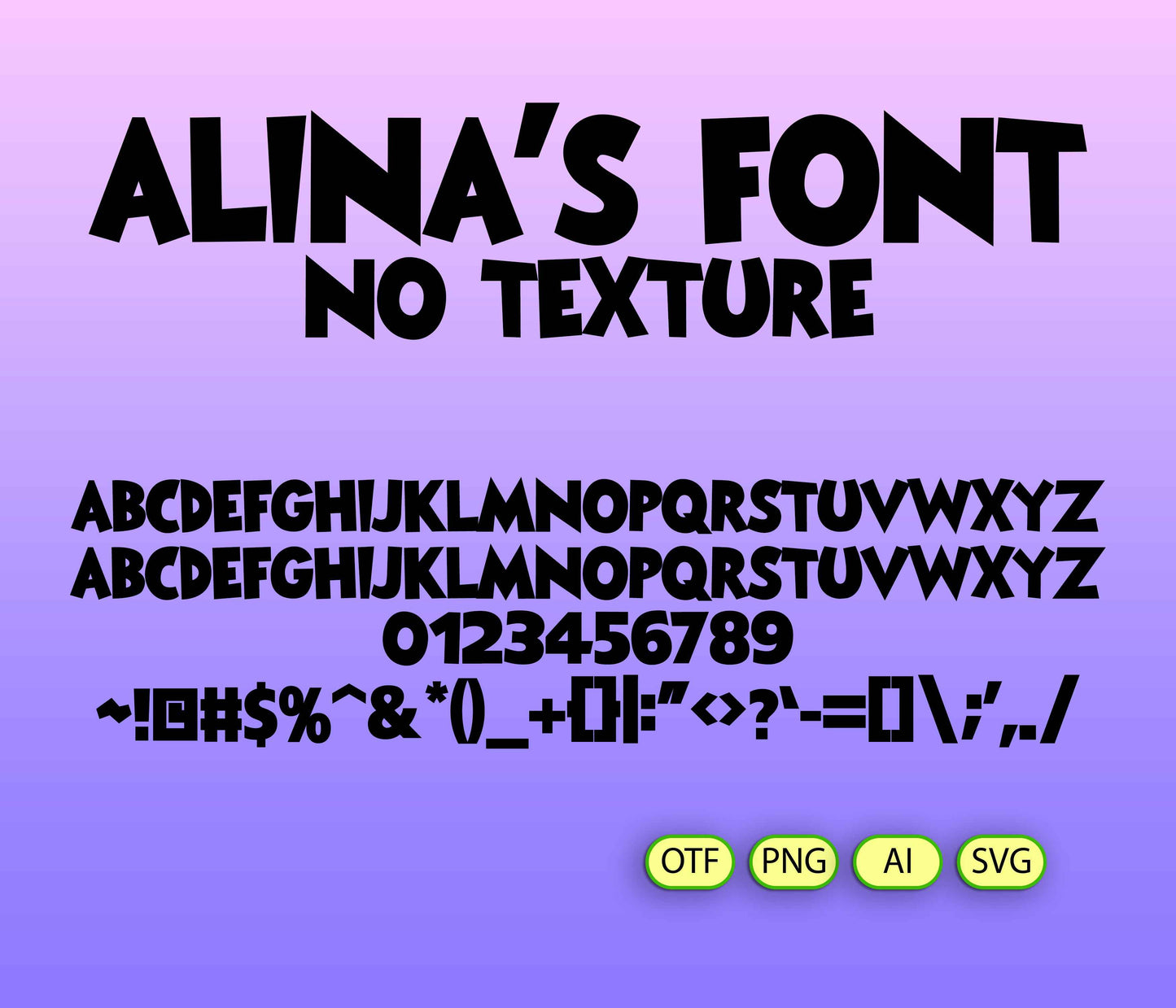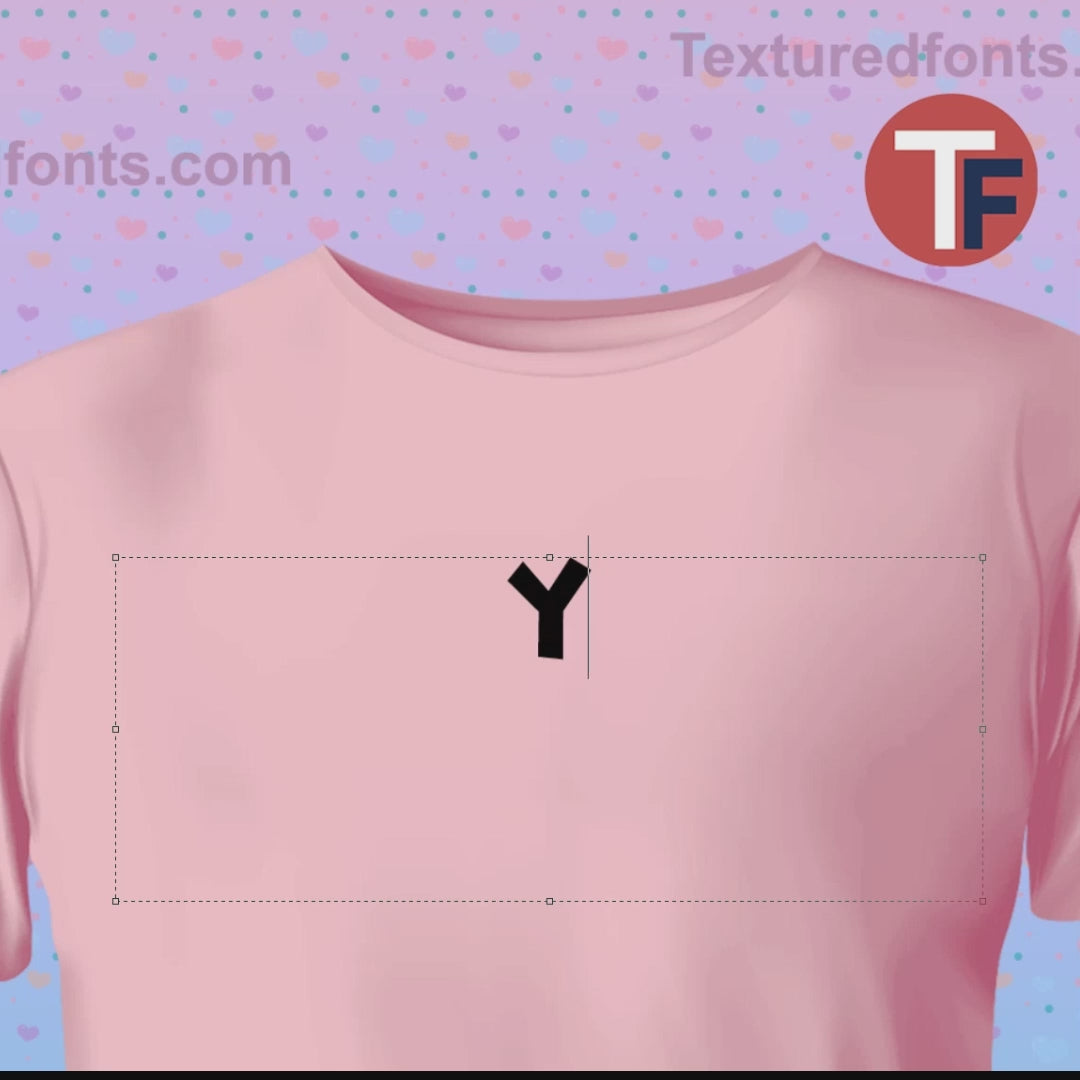
Neighborhood Tales Font
Neighborhood Tales Font: Bold and Community-Centric
Enhance your projects with the Neighborhood Tales font, inspired by a lively and heartfelt animated series about urban family life. This font captures the essence of family and community spirit, making it ideal for engaging and playful designs.
The Neighborhood Tales font is characterized by its bold and cheerful characters, reflecting the diverse and vibrant city setting of a beloved cartoon. It's perfect for titles, displays, and any content that requires a touch of warmth and inclusivity.
Perfect for family-oriented publications, community event materials, or children's media, the Neighborhood Tales font brings a friendly and inviting atmosphere to your creative projects, mirroring the focus on connections and adventures in a bustling urban environment.